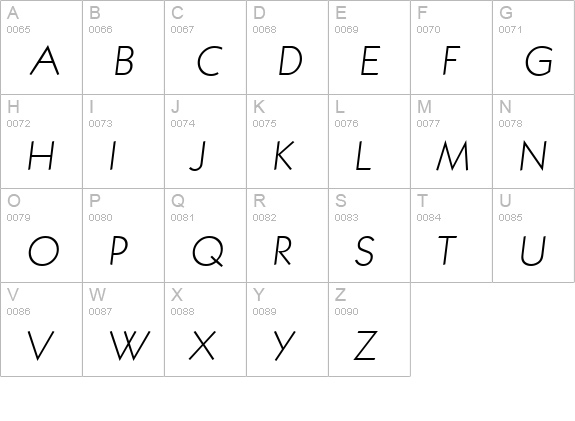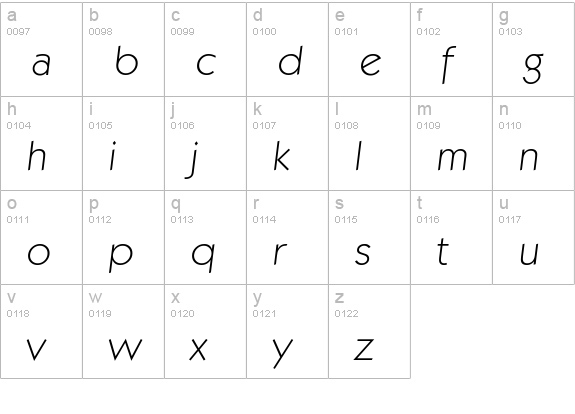
KoblenzSerial-Xlight-Italic Font Details
KoblenzSerial-Xlight-Italic is a distinctive, italic variant in the KoblenzSerial typeface family \xE2\x80\x94 well suited to design and typography projects.
KoblenzSerial-Xlight-Italic is a sleek and elegant font that exudes a sense of modern sophistication. Its delicate curves and slanted design add a touch of stylish flair to any project. This font is perfect for creating eye-catching logos, branding materials, and invitations. With its light weight and italic styling, KoblenzSerial-Xlight-Italic brings a sense of grace and refinement to your designs. Best of all, KoblenzSerial-Xlight-Italic is available for free download at FontsMarket.com. Whether you're a designer looking to add a new font to your collection or a business owner in need of a fresh look for your branding, KoblenzSerial-Xlight-Italic is the perfect choice. Download this stunning font today and elevate your designs with its timeless appeal.